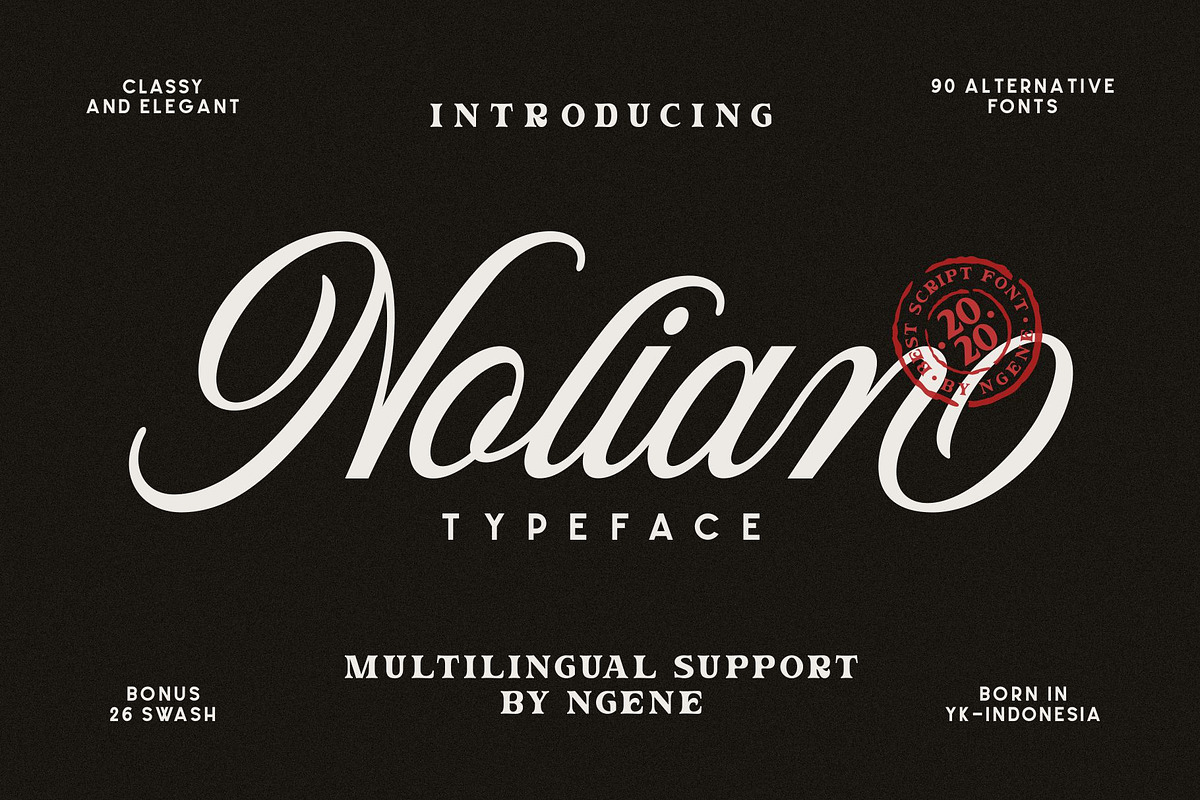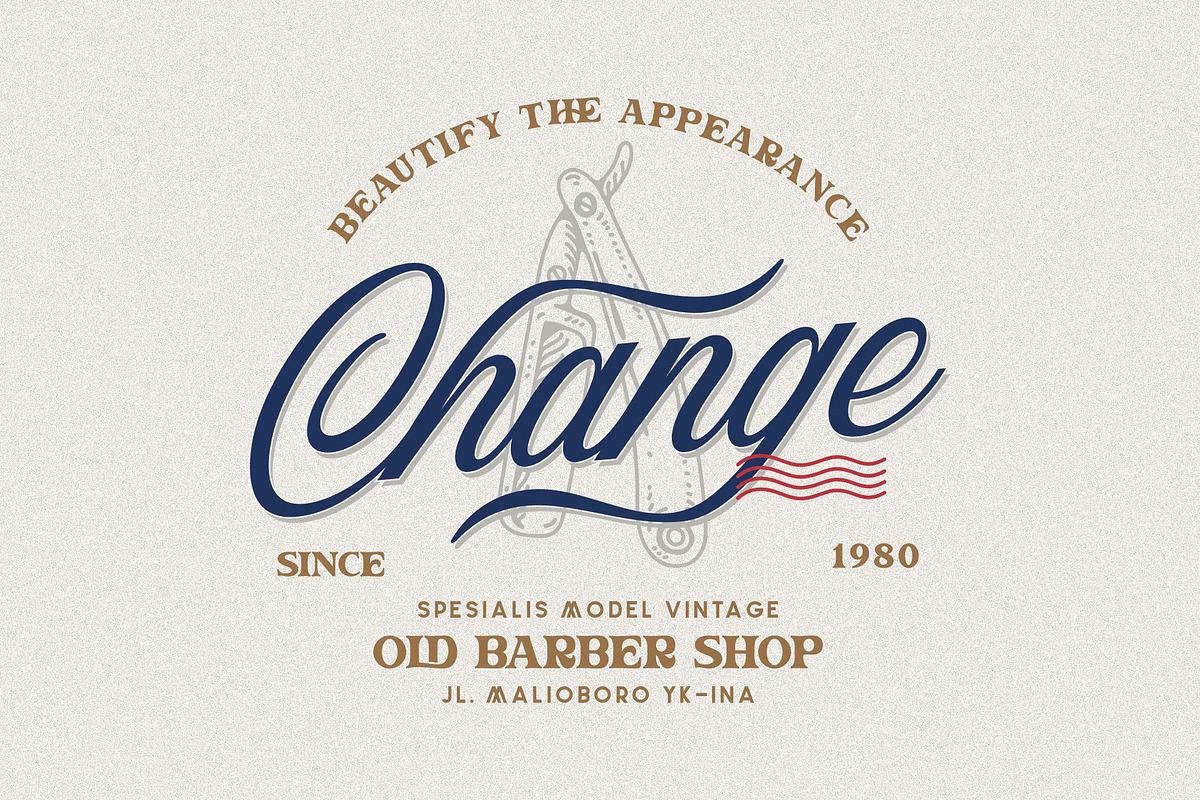
Nolian Script
INTRODUCING NOLIAN SCRIPT
This Nolian Script comes with a modern and vintage touch in it. This font is great for your design projects such as logos, posters, invitation cards, packaging, badges, types of logos, clothing designs, labels and more.
This font has many alternative fonts in it, making it easier for you to beautify the writing you need. Nolian Script is also multilingual support.